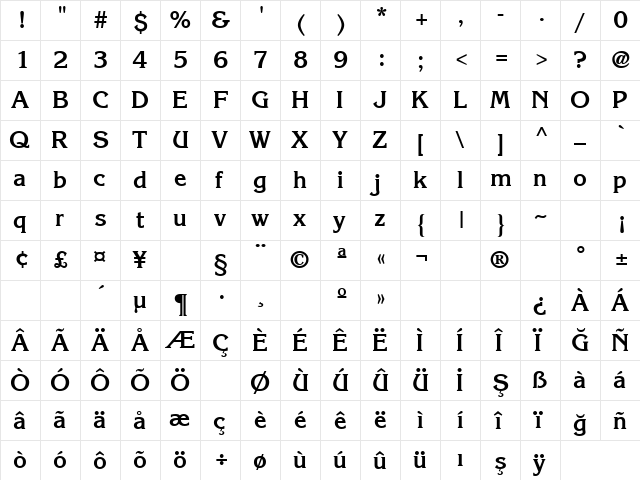
TR Eagles Bold
Design Context for TR Eagles Typeface
TR Eagles offers clean, dependable letterforms without strong stylistic allegiance, making it a practical choice for designers who need flexibility. Its bold stroke weight gives it real presence on the page.